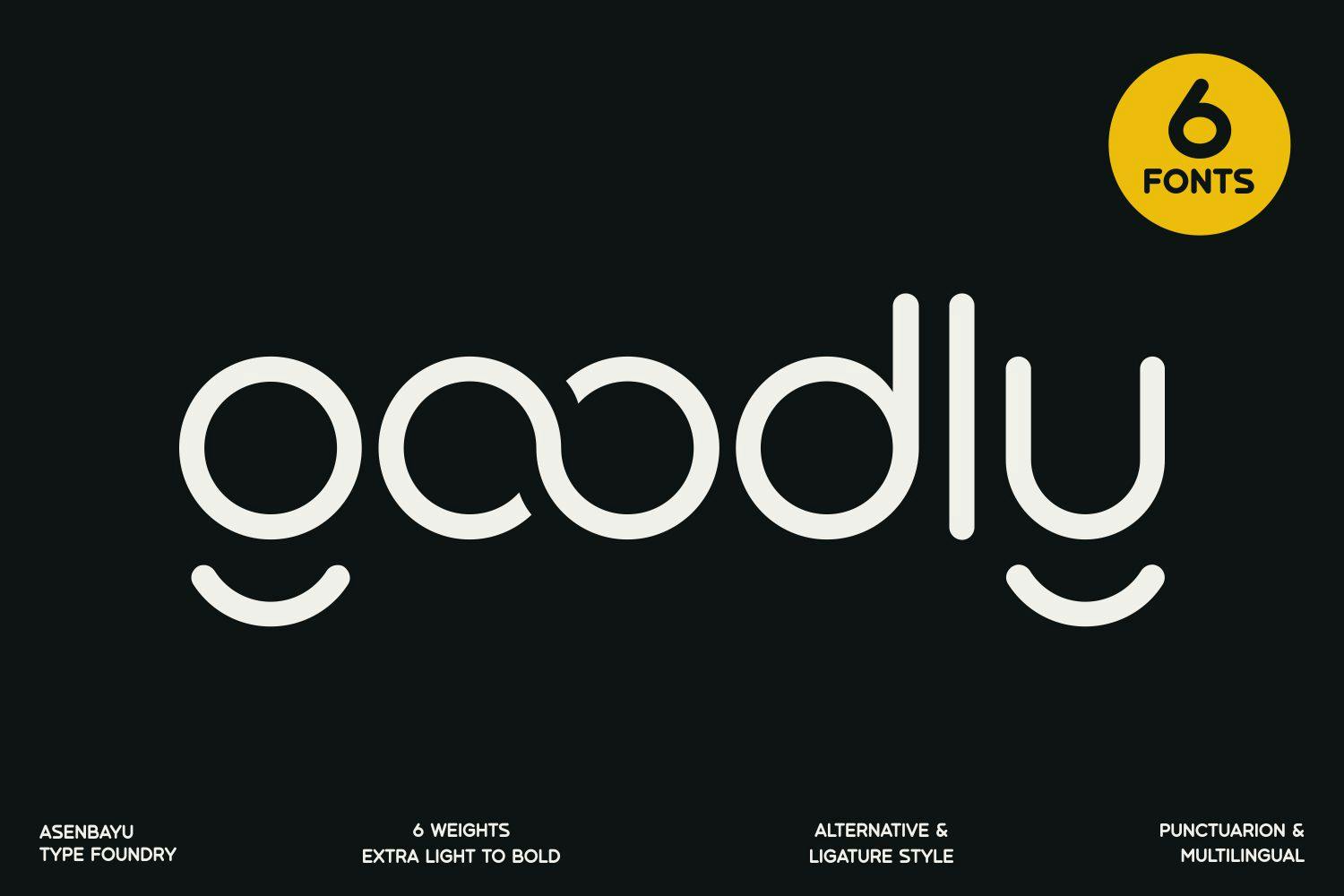
Goodly - Geometric Rounded Fonts Family
Perfect for branding, UI/UX design, websites, mobile apps, logos, packaging, and editorial projects.
The Goodly - Geometric Rounded Fonts Family excites designers with its clean, friendly, and modern geometric shapes softened by smooth rounded edges, creating an approachable and versatile look.
Font families: Goodly Regular, Goodly Bold, Goodly Italic, Goodly Light.
The Goodly - Geometric Rounded Fonts Family Free Download is a highly versatile typeface designed to add clarity, warmth, and contemporary style to your projects. Its geometric precision combined with rounded corners offers excellent readability and a welcoming aesthetic, ideal for digital and print designs alike.
One of the key strengths of Goodly - Geometric Rounded Fonts Family is its adaptability. Whether used for headlines, body text, or UI elements, it maintains legibility and friendliness, making it perfect for brands aiming for modern yet approachable identities.
In branding, Goodly conveys professionalism, friendliness, and innovation. It pairs beautifully with minimalist layouts, soft color palettes, and clean design elements, helping brands build trustworthy and inviting personas.
For digital projects, this font enhances website typography, app interfaces, social media graphics, and digital marketing materials with its smooth and modern character. Its rounded shapes create a human touch that connects well with users.